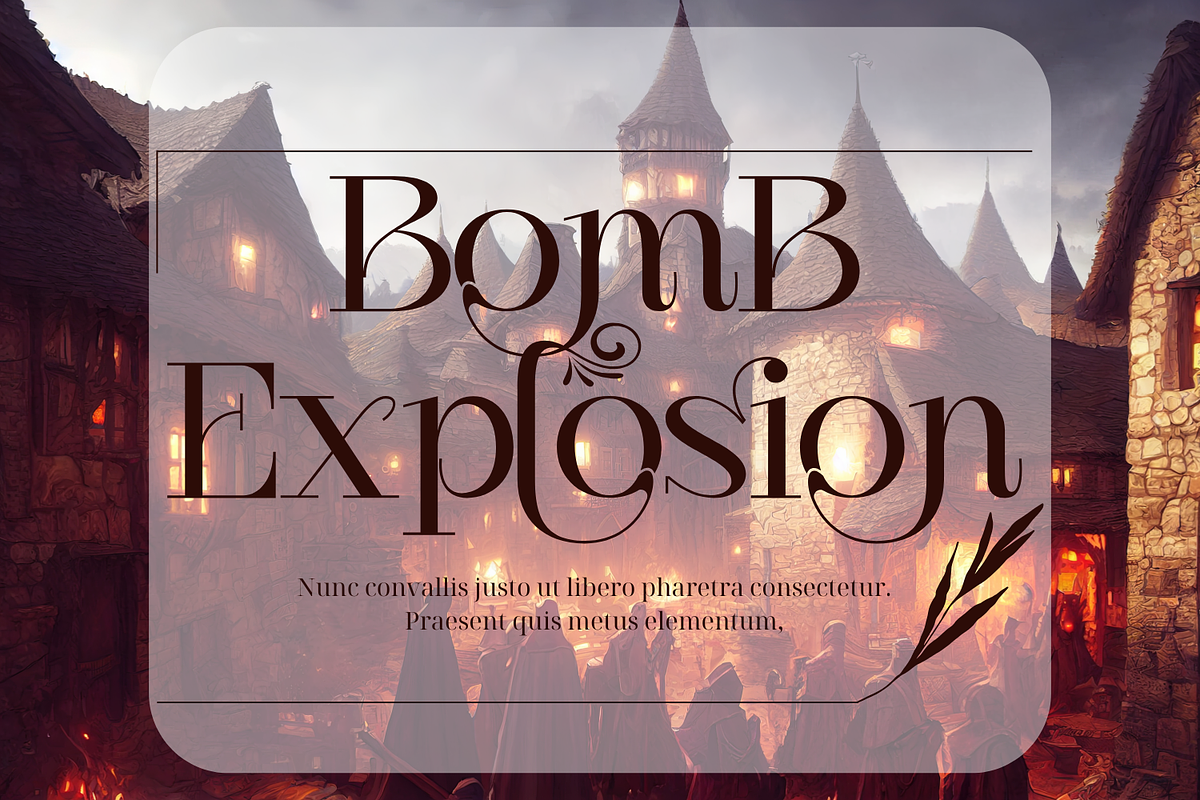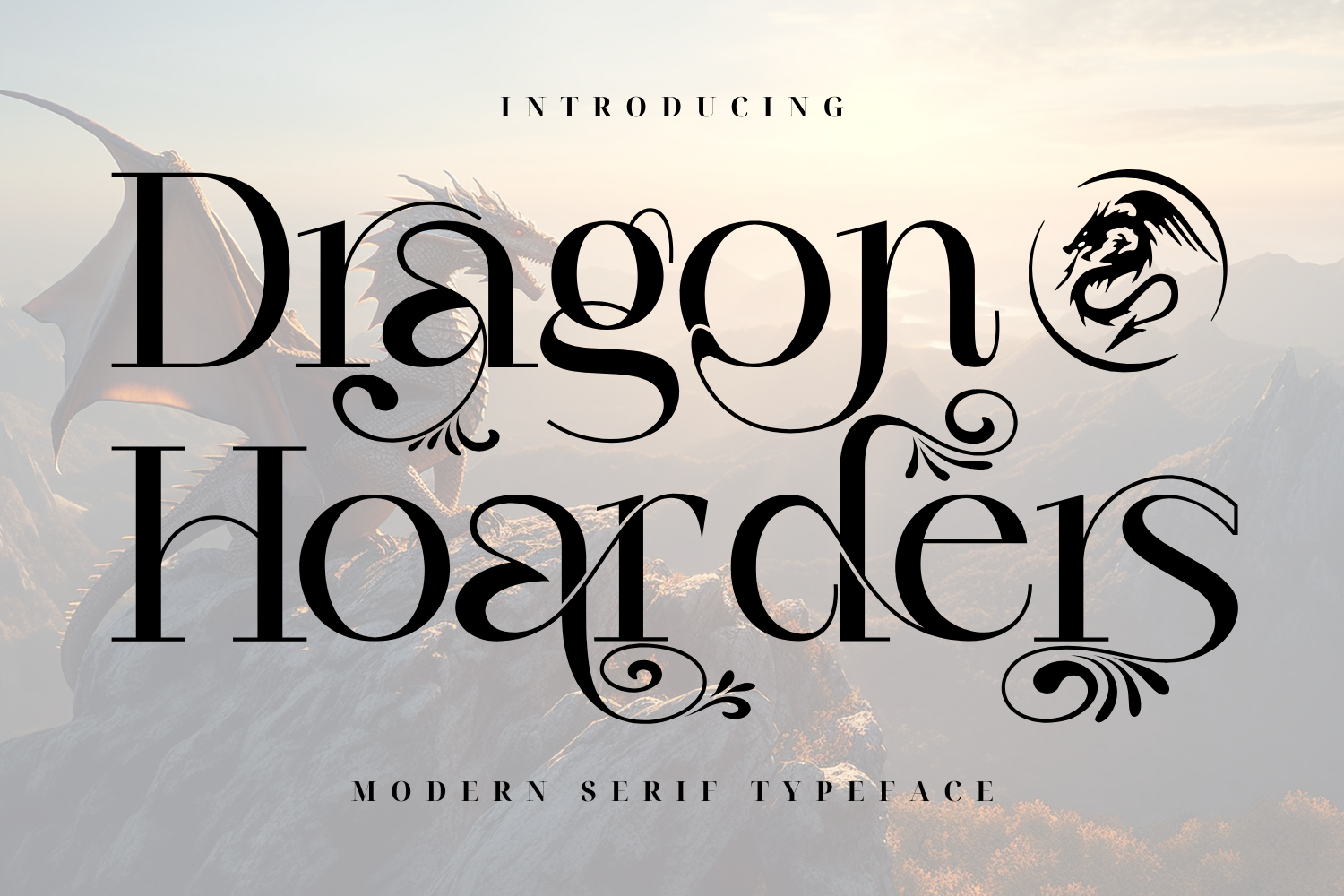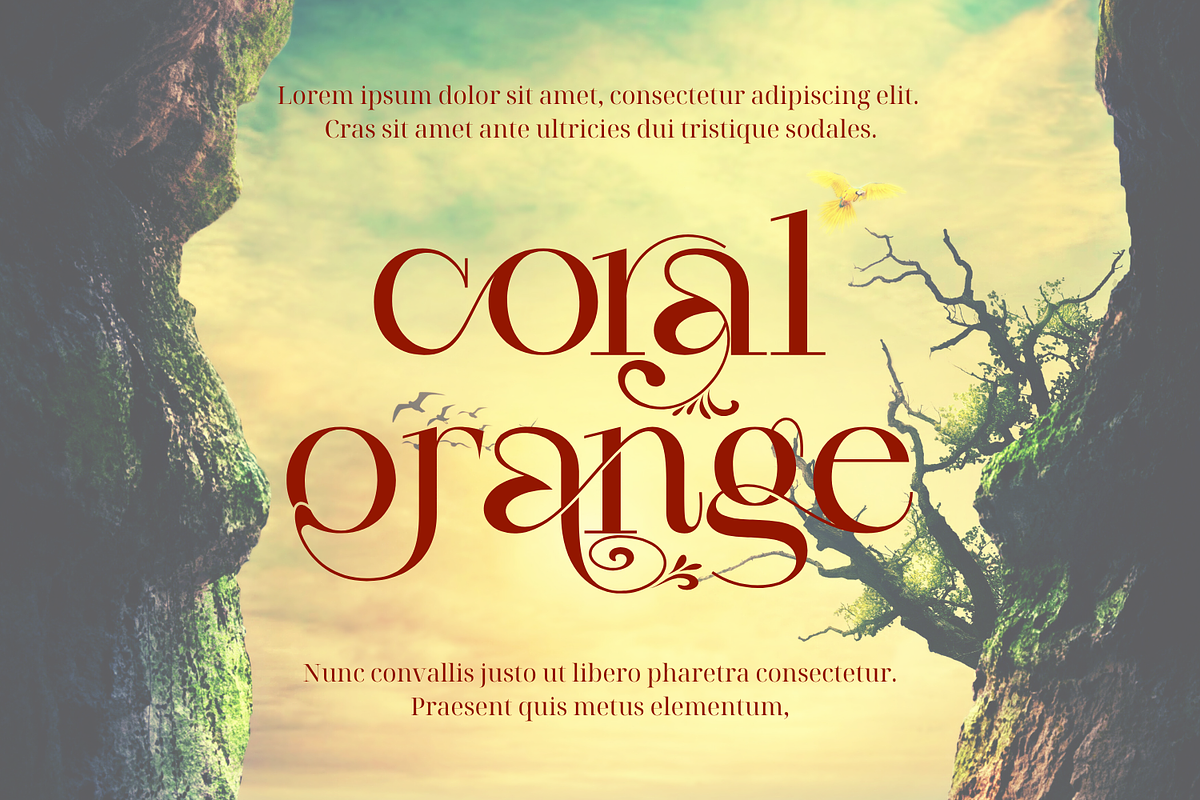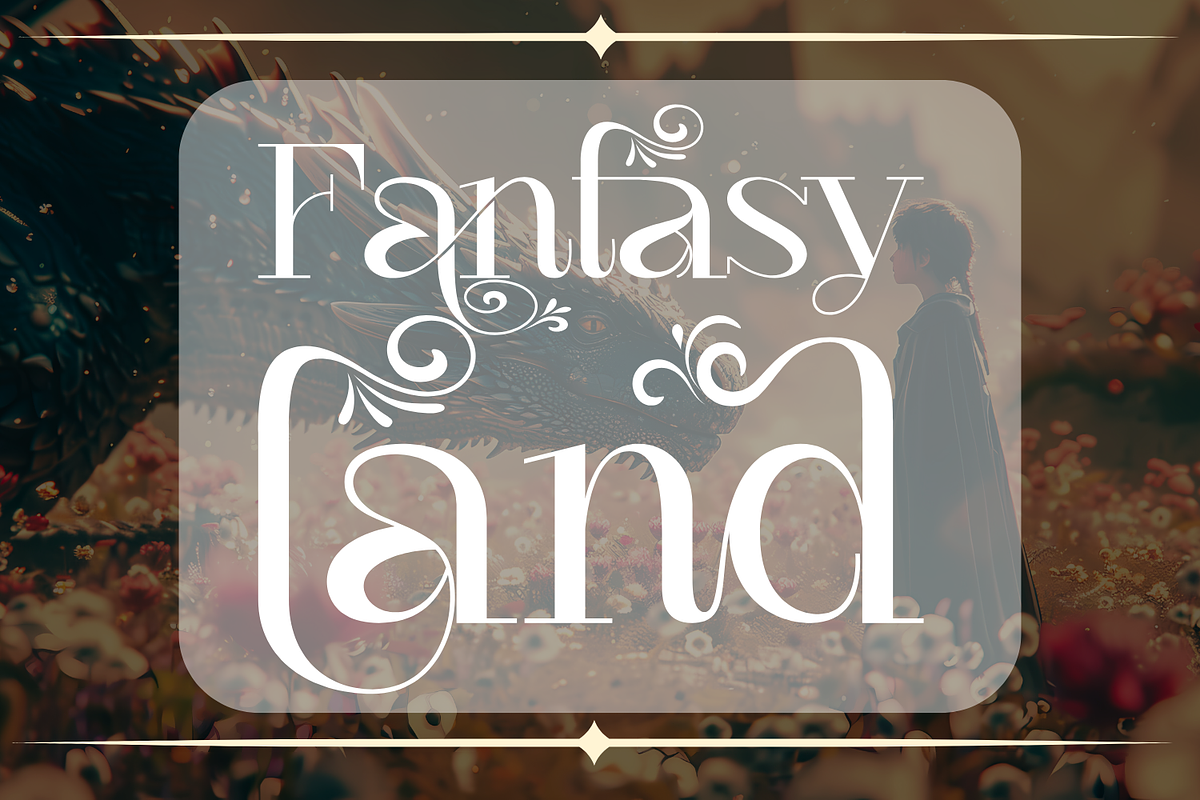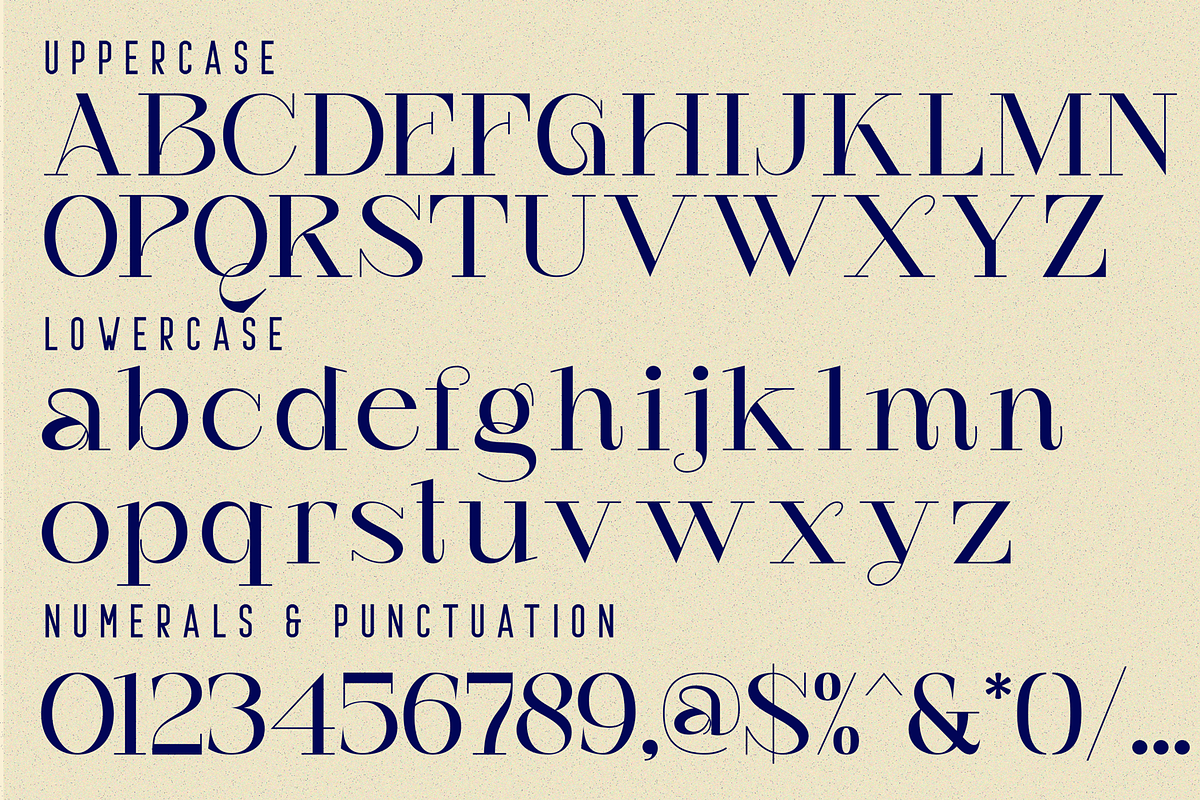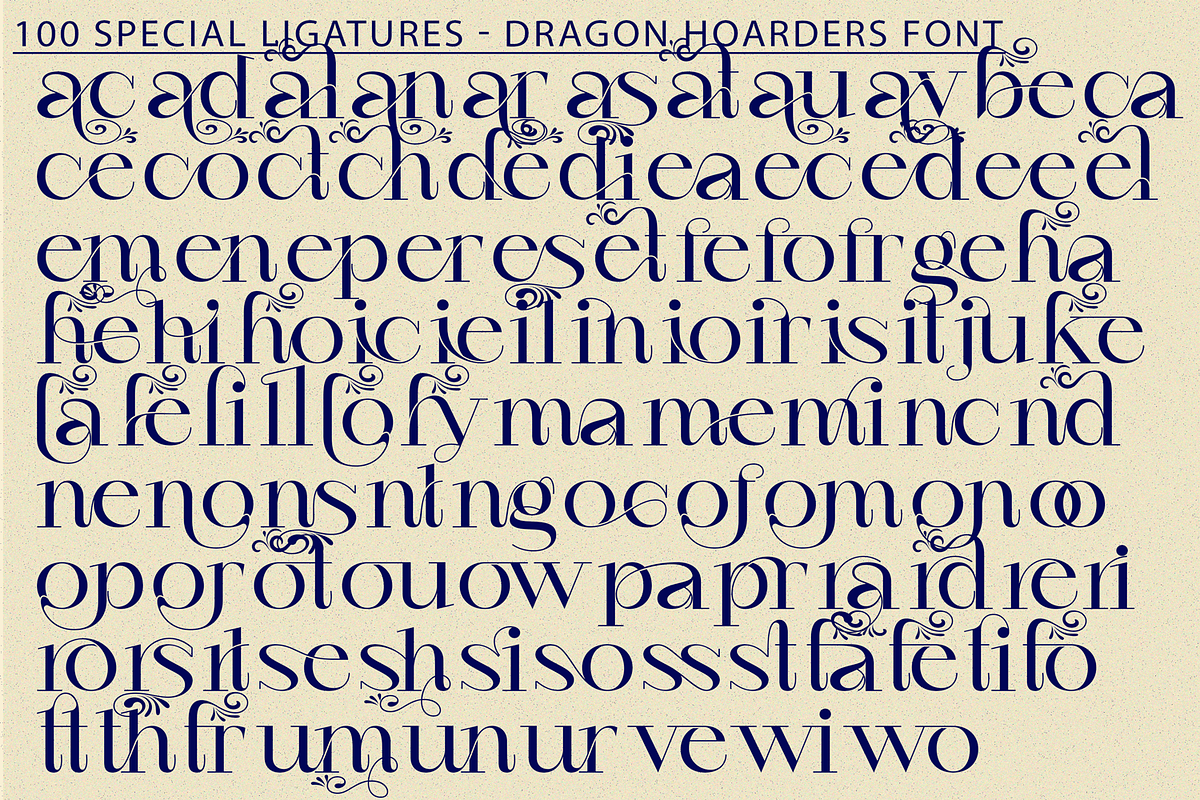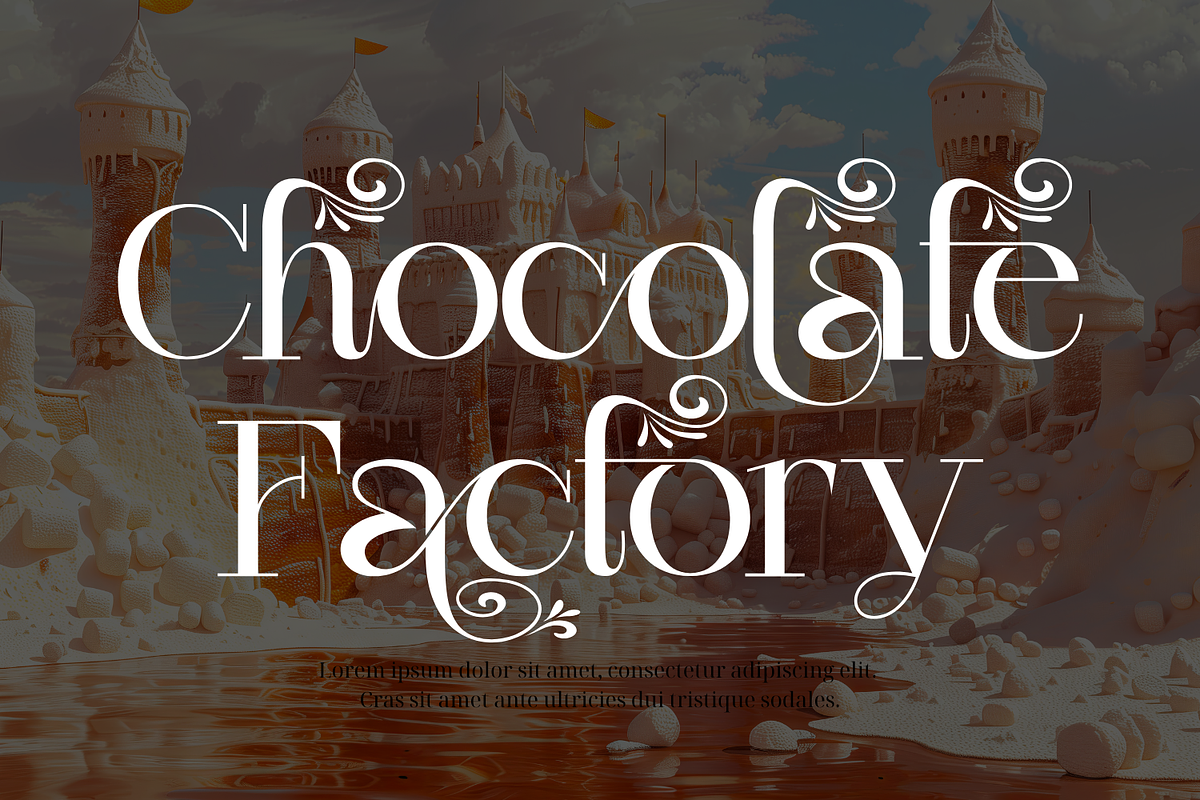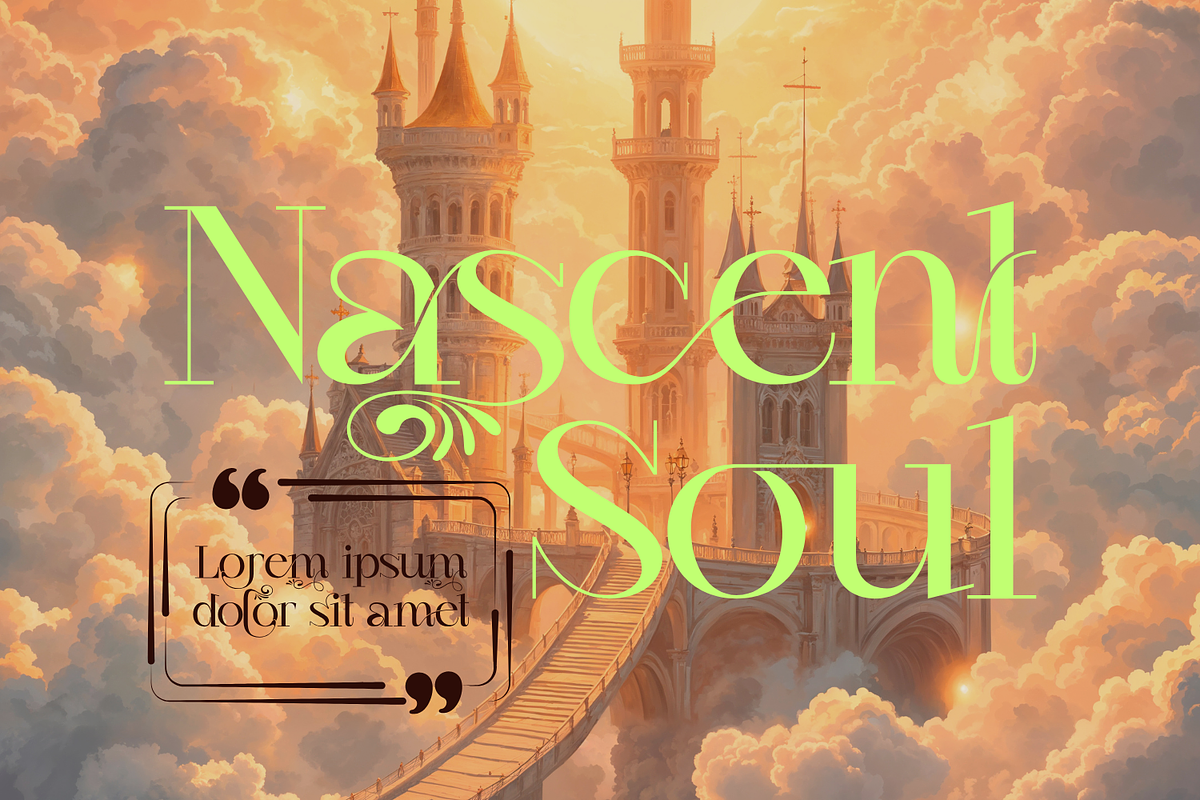
Dragon Hoarders Font
Dragon Hoarders Font – A Unique & Striking Display Serif Typeface. It's a bold and captivating display serif font designed to make a statement. With its distinctive letterforms and elegant details, this typeface blends uniqueness with timeless sophistication, making it perfect for branding, editorial design, posters, headlines, and more.
🔹Features:
⭐ Uppercase & Lowercase Letters – Crafted for bold and expressive typography.
⭐ 100+ Special Ligatures & Stylistic Alternates – Offering endless creative possibilities.
⭐ Numerals & Punctuation – A complete set for versatile designs.
⭐ Accented Characters – Supporting multiple languages with ease.
Whether you're looking for a font that exudes luxury, modernity, or artistic flair, Dragon Hoarders delivers a powerful visual impact that ensures your designs stand out.
🔹About 100 ligatures combined with Stylistic Alternates Font:
ac ad al an ar as at au av be ca ce ch co ct de di ea ec ed ee el em en ep er es et fe fo fr ge ha he hi ho ie ic il in io ir is it ju ke la le li ll lo ly ma me mi nc nd ne ng no nt ns oc of om on oo op or ot ou ow pa pr ra rd re ri ro rs rt se sh si so ss st ta te th ti to tr tt um un ur ve wi wo